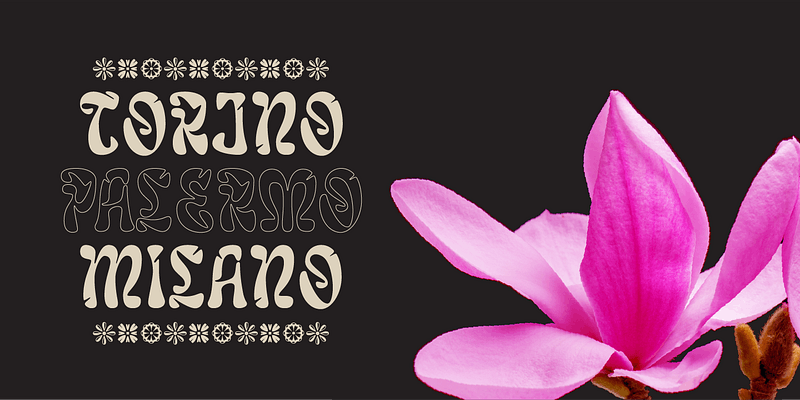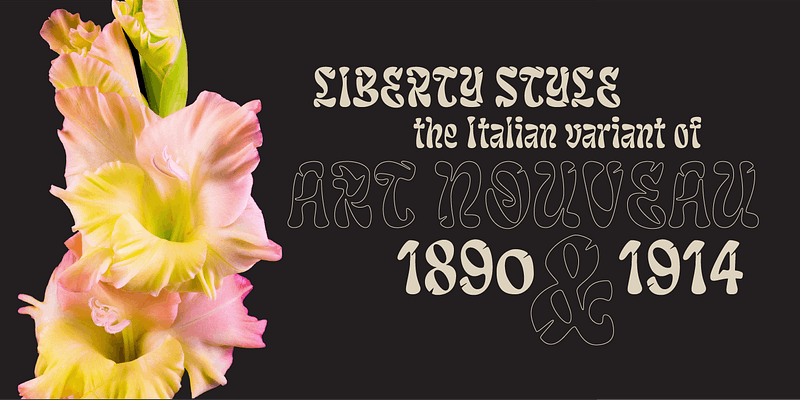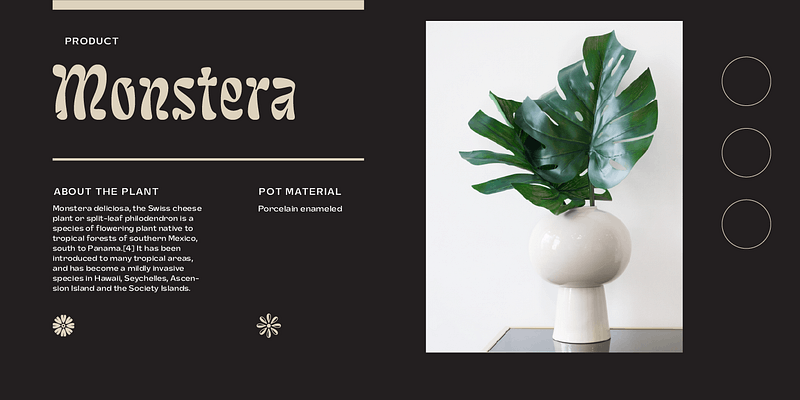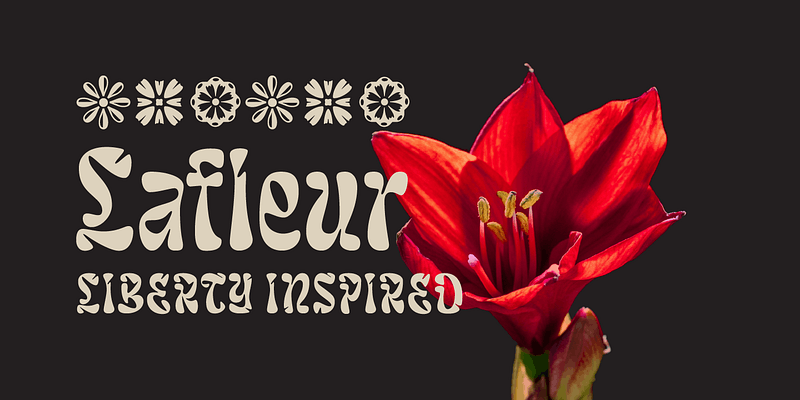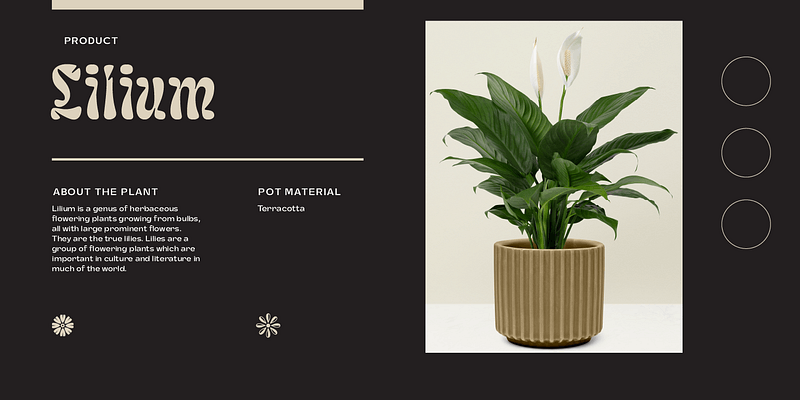
Inspired by the iconic Fenoglio-Lafleur Liberty building in the city of Turin, in an area with significant Stile Liberty buildings and New Gothic architecture. Lafleur is a decorative face with a remarkable art nouveau flair from 19th century. Perfect for creative contemporary uses in print and on screen. We recommend it for book covers, packaging, branding, editorial, web, advertising, apparel, purposes are endless.